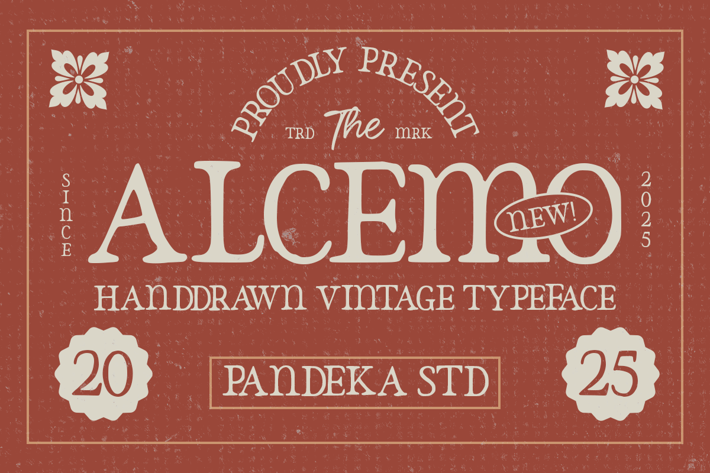
Alcemo - Logo Vintage Westeren Font
Alcemo – Hand-Drawn Vintage Serif
Alcemo is a hand-drawn serif typeface with a classic yet rustic aesthetic. Its carefully crafted letterforms and subtle imperfections bring an authentic vintage feel, perfect for branding, packaging, posters, editorial layouts, and signage. With its bold and timeless design, Alcemo adds warmth and character to any creative project.